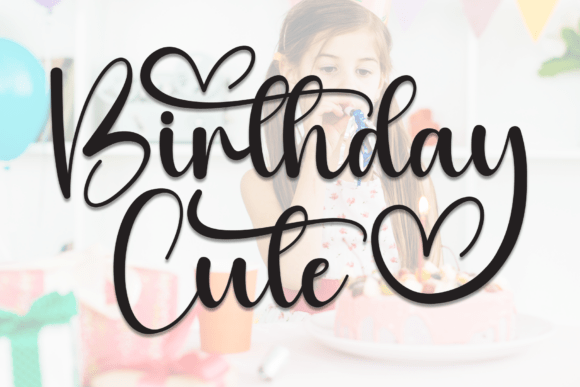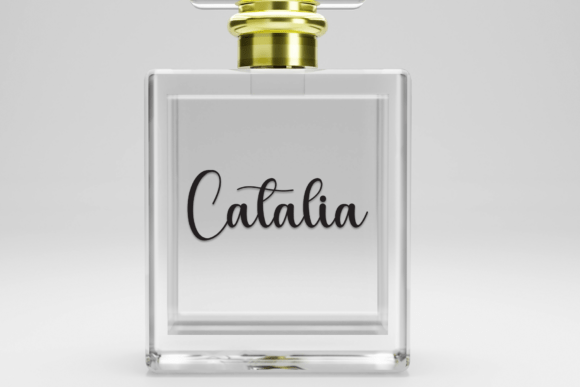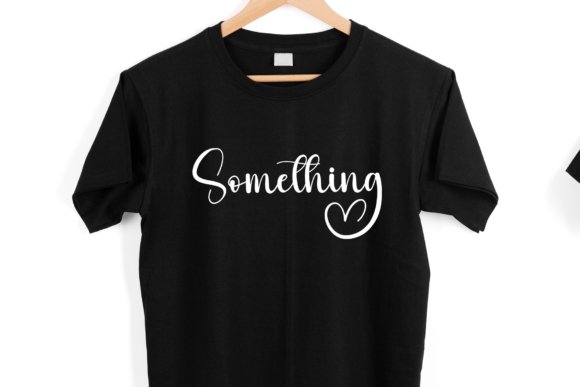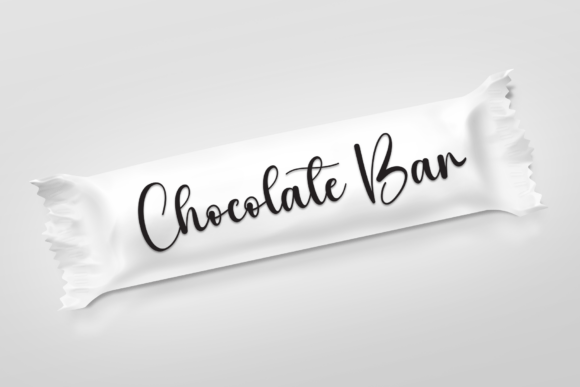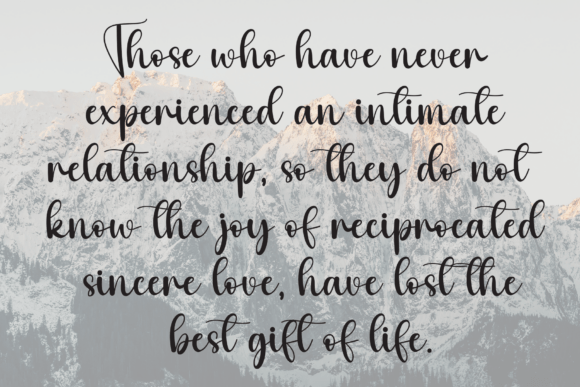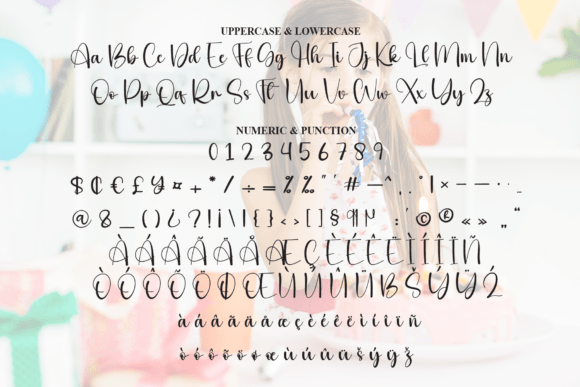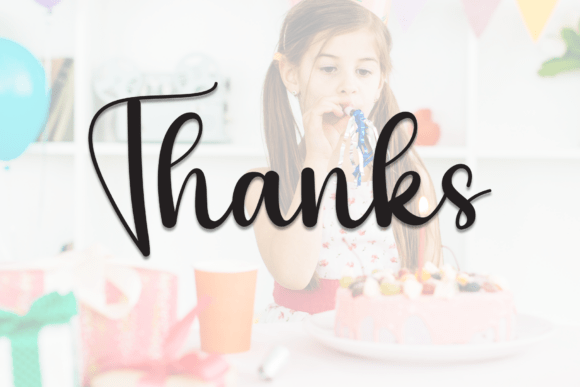
Birthday Cute Font
Add a touch of sophistication to your designs with this Elegant Script Font  – a graceful, flowing typeface that’s perfect for creating romantic and luxurious visuals. With beautiful beginning and ending swashes, this script font adds an extra flourish to wedding invitations, branding projects, social media graphics, and handwritten quotes. Its stylish curves and decorative alternates make every word look effortlessly refined and custom-made.